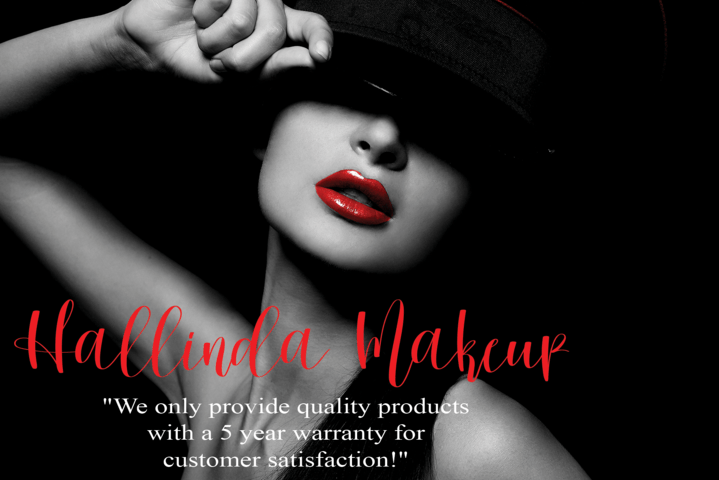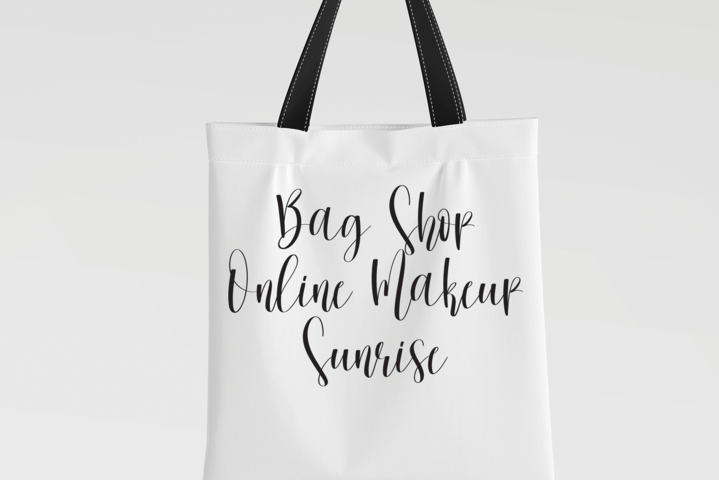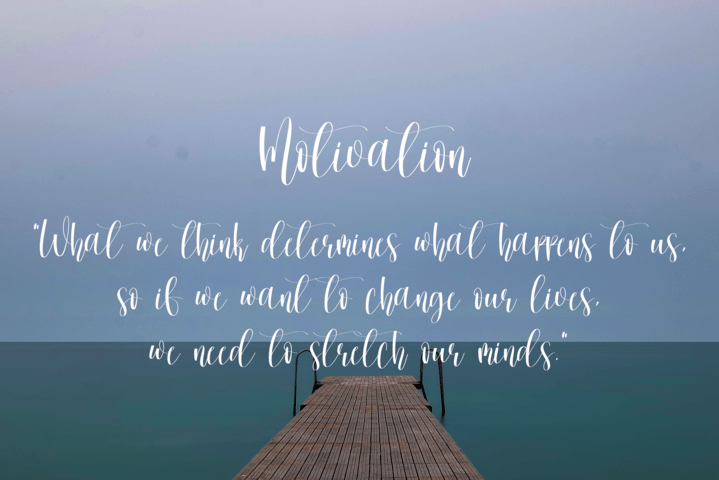
Winterday Font
Winterday Script Font
It’s an elegant handwritten font, perfect for kid’s clothes, bags, t-shirt designs, business cards, wall art, and any other creative project you have in mind.